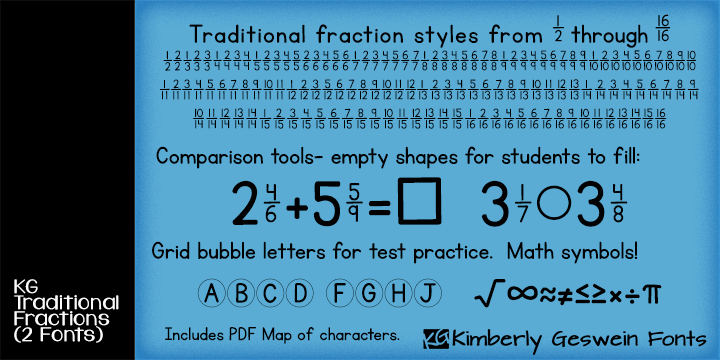
Font name: | KG Traditional Fractions |
Categories | Script, School |
Free for personal use. For commercial licensing, please see http://kimberlygeswein.com PERFECT for teachers, this font includes all fractions from 1/2 through 10/10 and basic math symbols. This allows you to easily create math games and worksheets for your students! |